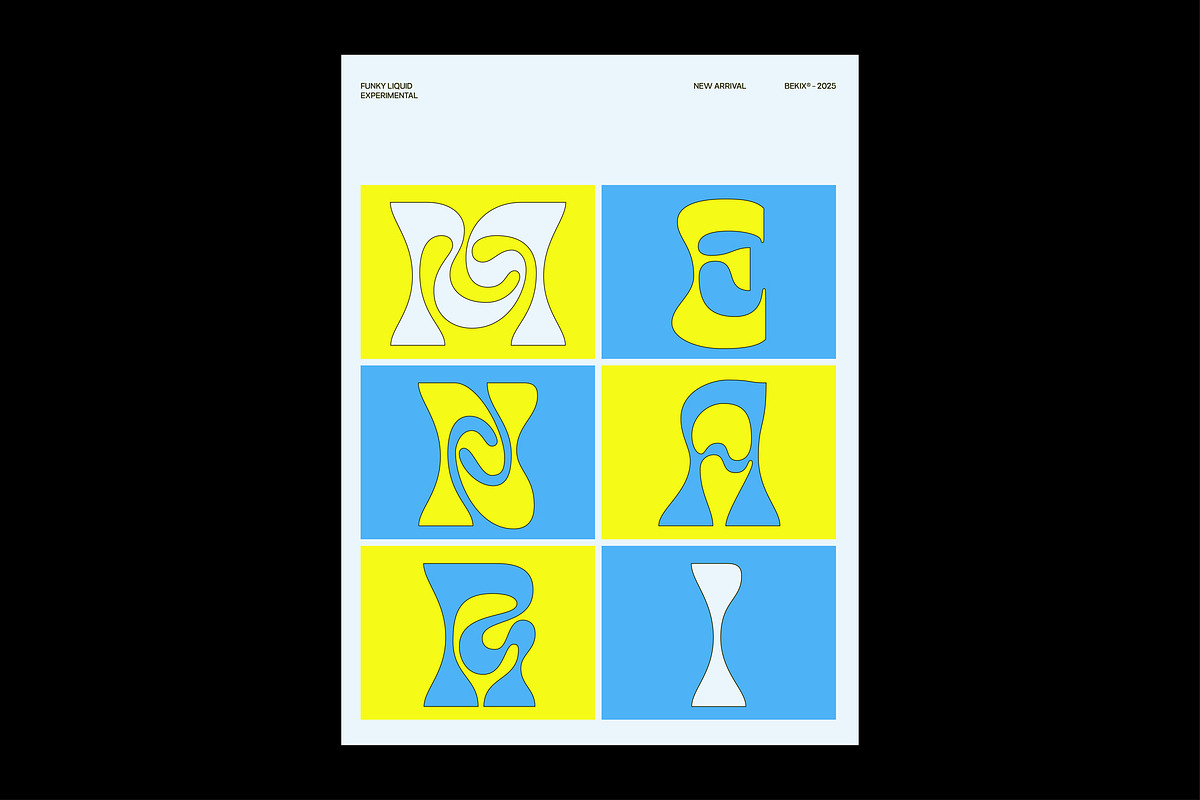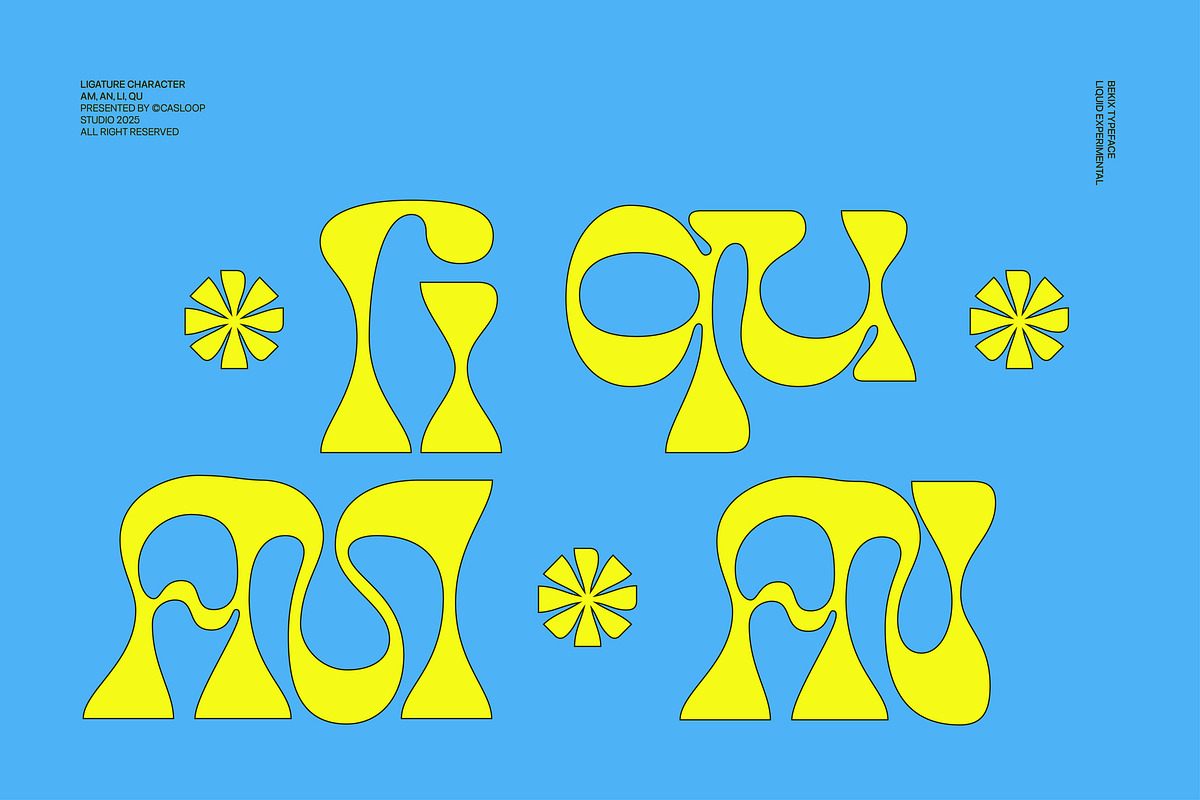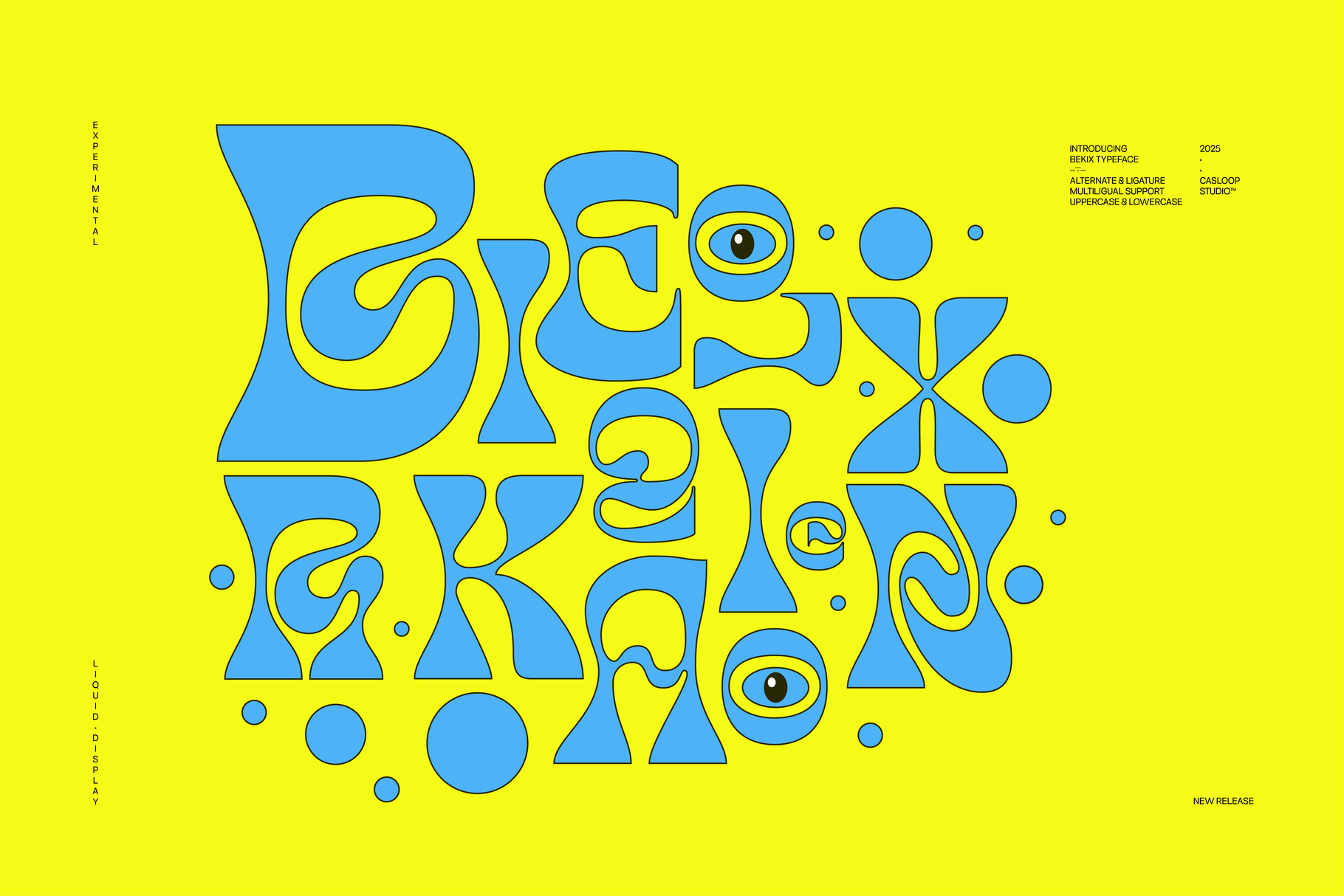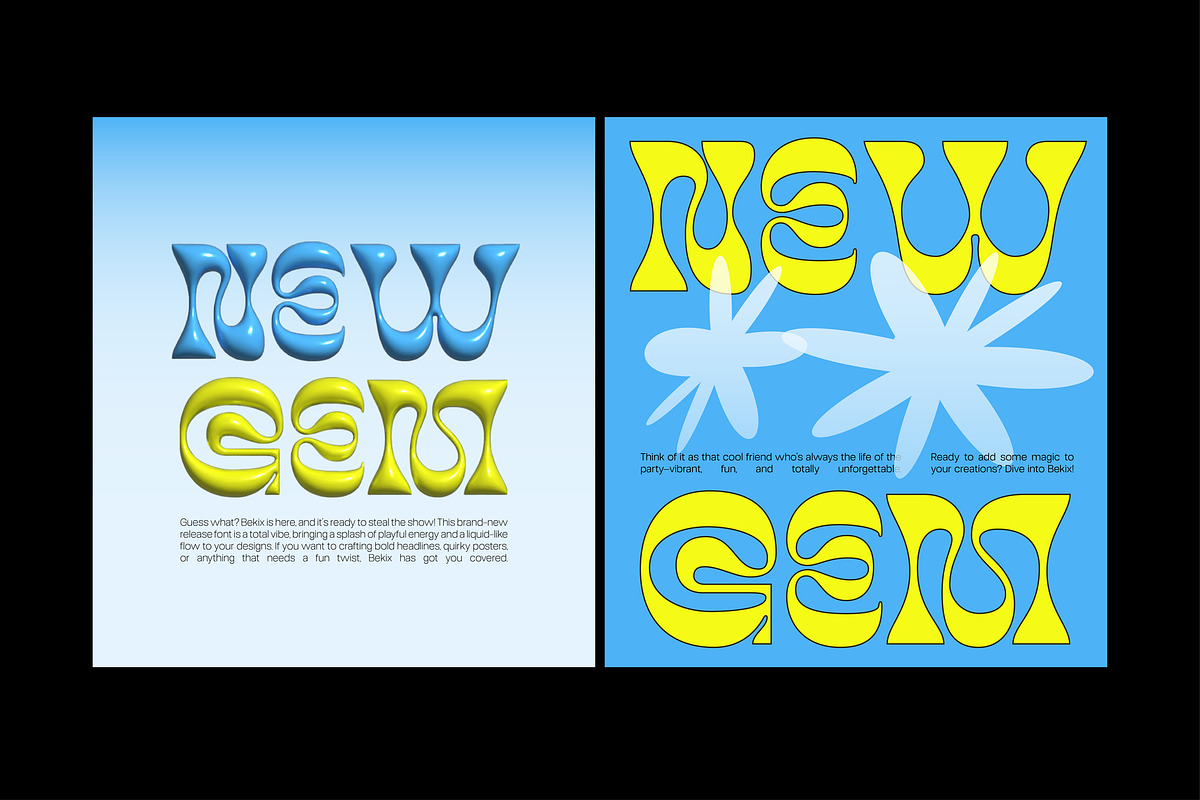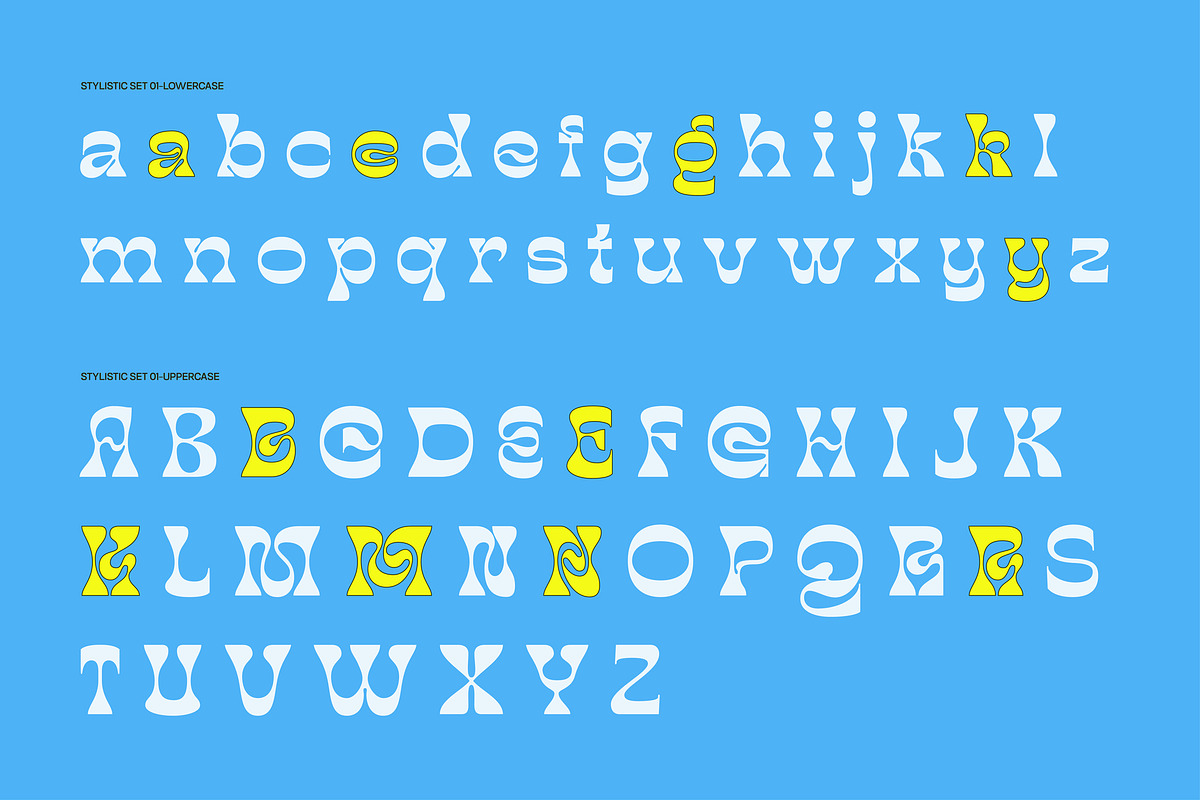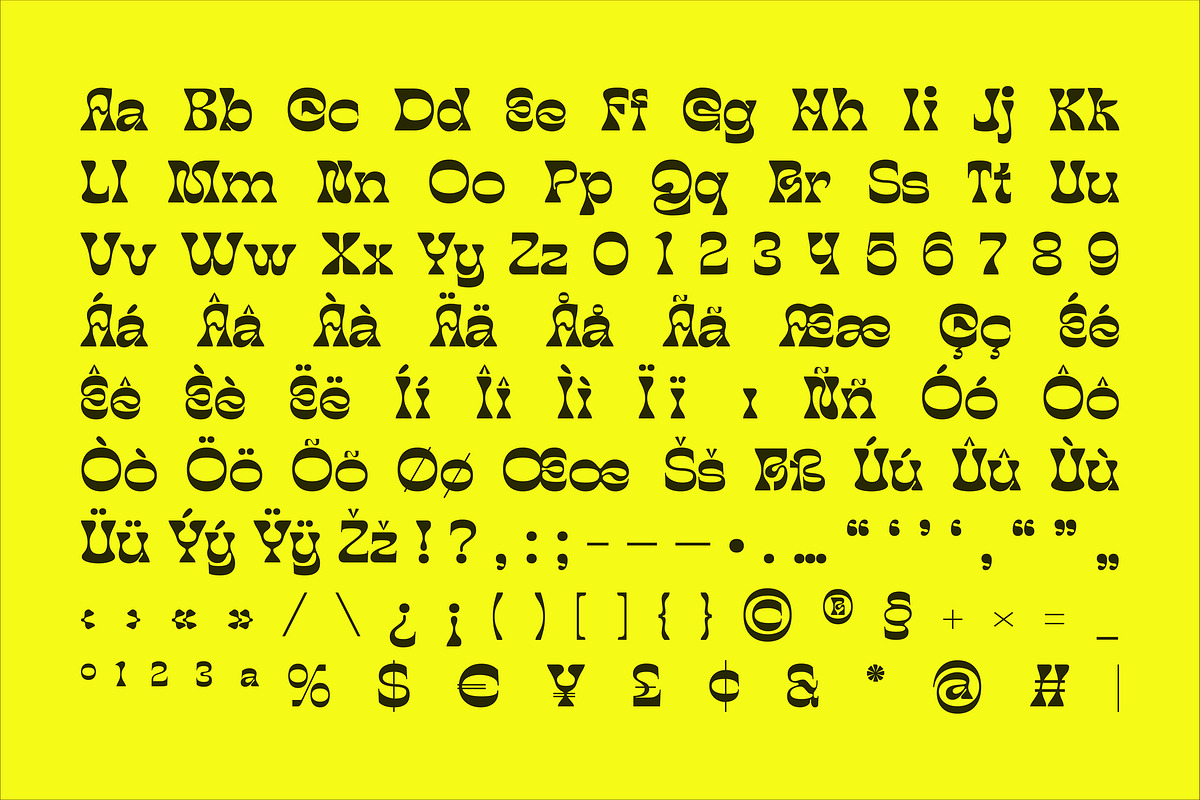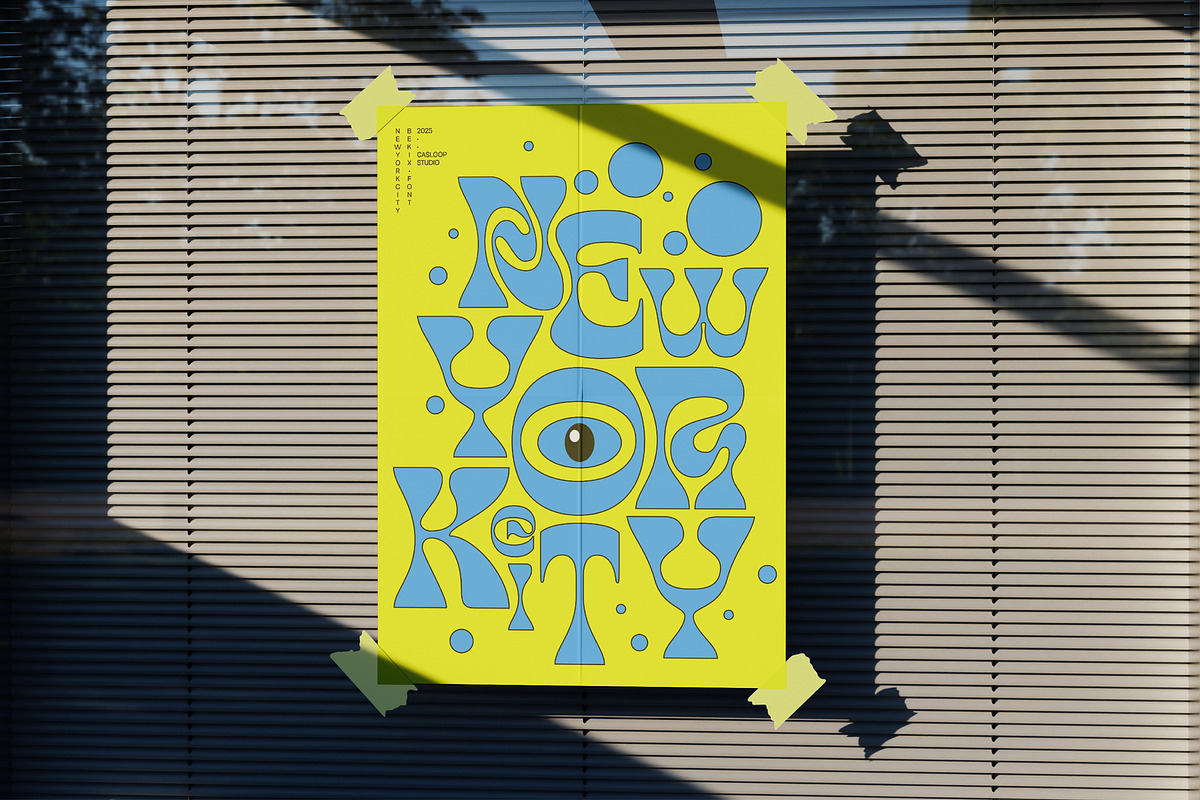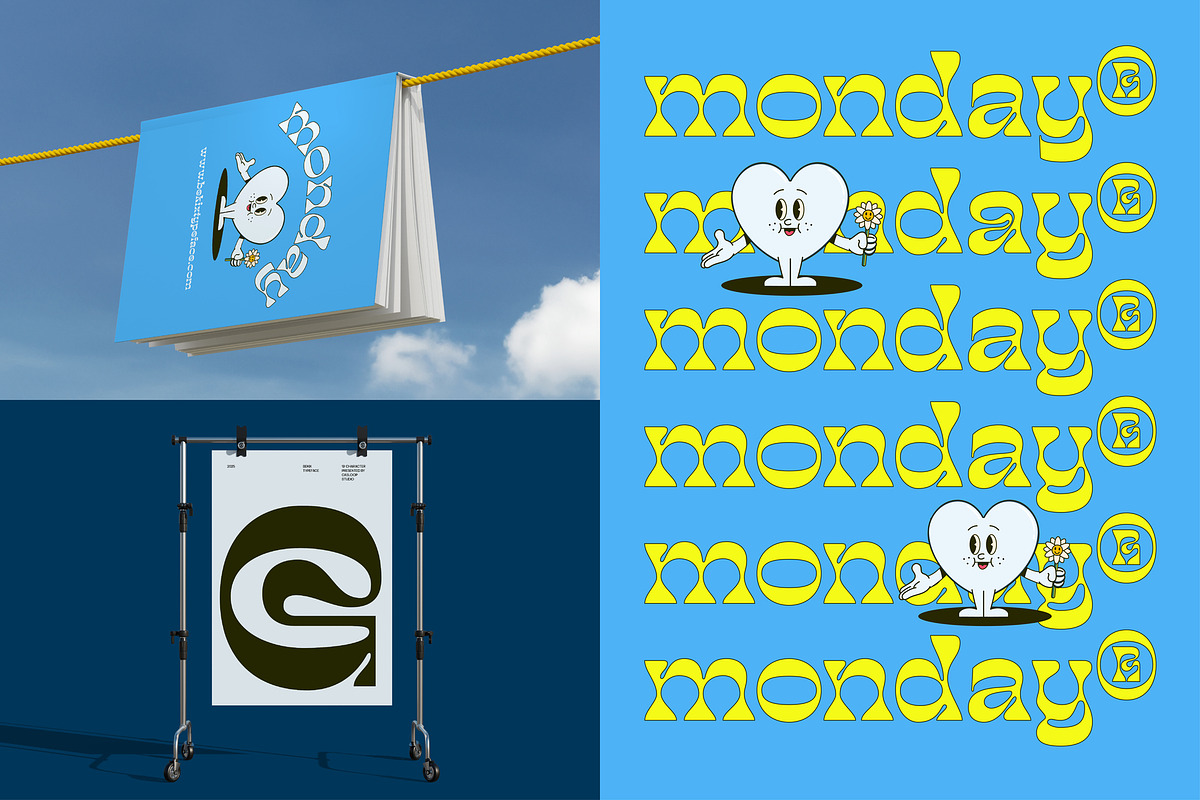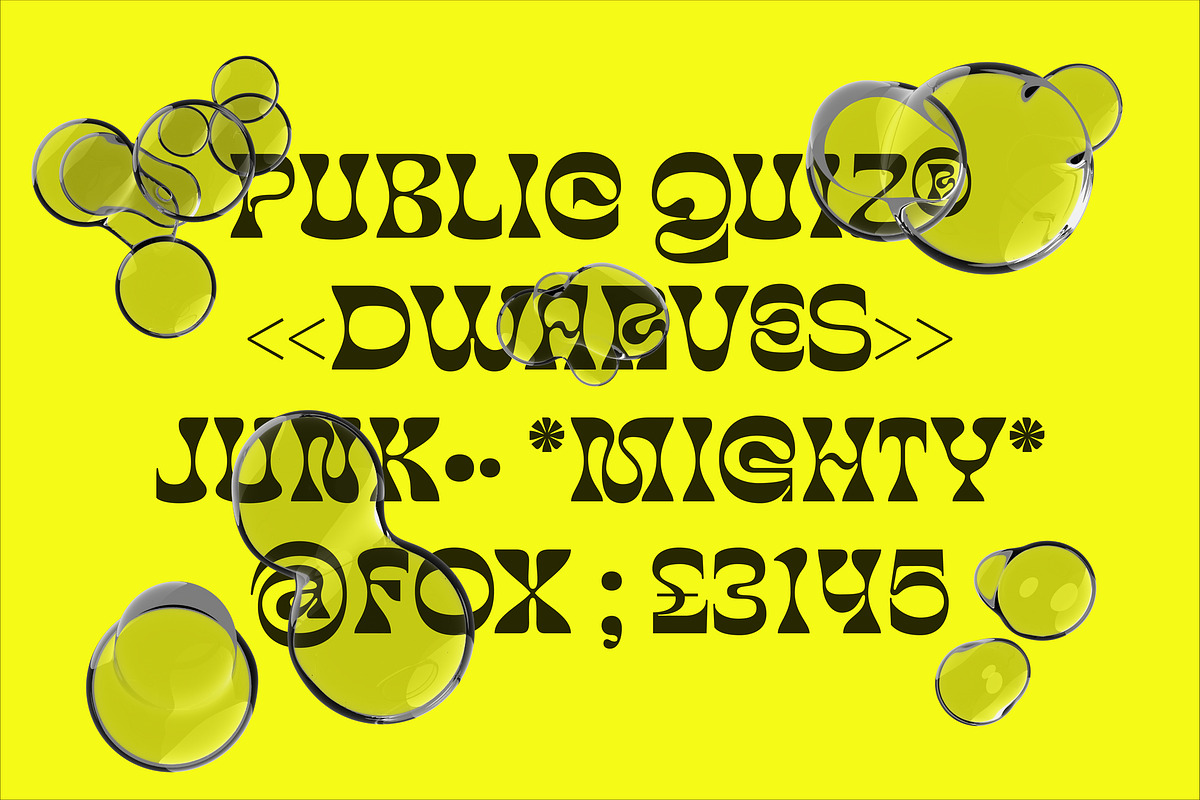
Bekix - Funky Liquid Retro Y2K Font
Bekix Typeface — The Funky, Liquid-Inspired Display Font Bekix is a bold and experimental display typeface designed for creatives who dare to be different. Perfect for eye-catching branding, playful posters, and vibrant social media content, Bekix exudes personality with its retro-inspired, liquid-like letterforms. This typeface effortlessly balances funky energy with contemporary charm, making it a must-have for bold design projects.
Features of Bekix Typeface -Playful Alternates and Ligatures: With stylistic alternates and custom ligatures, Bekix gives you the creative flexibility to make your designs truly unique. -Retro Meets Modern: Inspired by vintage aesthetics but with a contemporary edge, Bekix is perfect for projects that need a bold, trendy vibe. -Multilingual Support: Bekix supports a wide range of languages, including accented characters, making it suitable for global audiences. -Versatile Formats: Available in OTF, TTF, WOFF, and WOFF2 formats for seamless use across all design platforms. -Attention-Grabbing Shapes: Its bold, wavy letterforms make Bekix the perfect choice for high-impact headlines and artistic designs. -File Includes (.otf, .ttf, .woff, .woff2)
Applications -Branding: Bekix’s bold and playful aesthetic makes it a standout choice for logos, packaging, and identity design. -Posters & Event Graphics: Create vibrant and energetic visuals for events, music festivals, and campaigns. -Social Media Content: Add funky vibes to your posts and make your content impossible to scroll past. -Editorial Design: Bring a retro, artistic touch to magazine spreads, zines, and more.
Bekix is all about making your work stand out. Whether it’s bold headlines, fun posters, or branding that grabs attention, this retro-inspired, funky, liquid display font brings bold energy to your creative projects. Designed for anything but ordinary, Bekix adds personality and flair to every design. From posters and event branding to social media graphics and editorial layouts, Bekix thrives in projects that need to make a statement. Its playful curves and experimental shapes make it perfect for music festival visuals, logo design, or even merchandise and packaging. Bekix comes loaded with thoughtful design features, including stylistic alternates for creative expression, playful ligatures that add flow and uniqueness, and multilingual support for global versatility. With its bold, funky, and playful aesthetic, Bekix delivers a mix of groovy retro vibes and modern appeal. Its dynamic, energetic style is perfect for grabbing attention while keeping your designs fresh and artistic. Whether you’re creating a poster with bold visuals, crafting branding with character, or adding a retro twist to your work, Bekix is built for creators who want to leave an impression. It’s versatile, vibrant, and ready to elevate your next project.